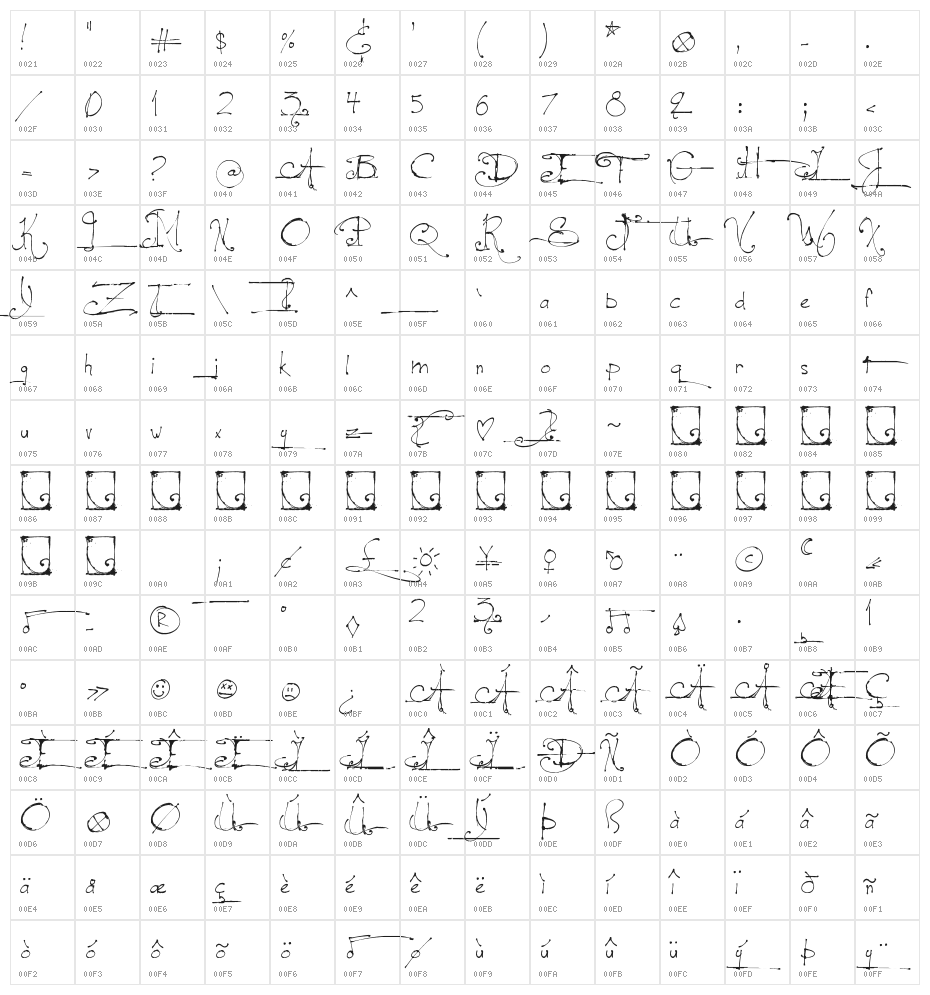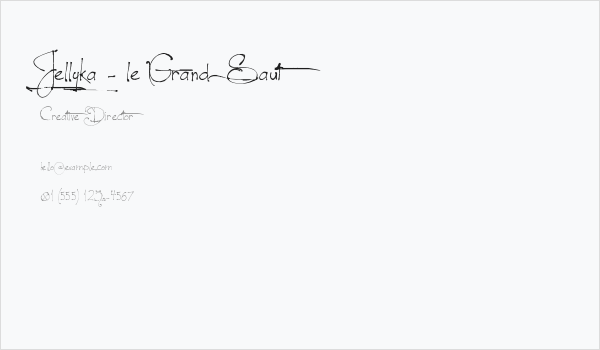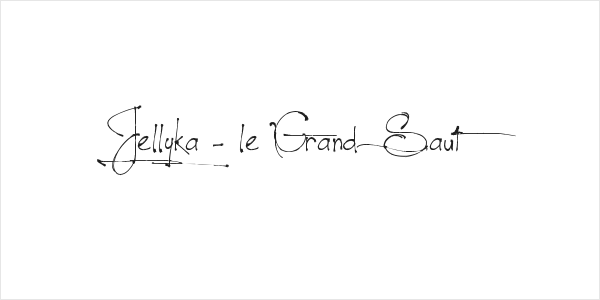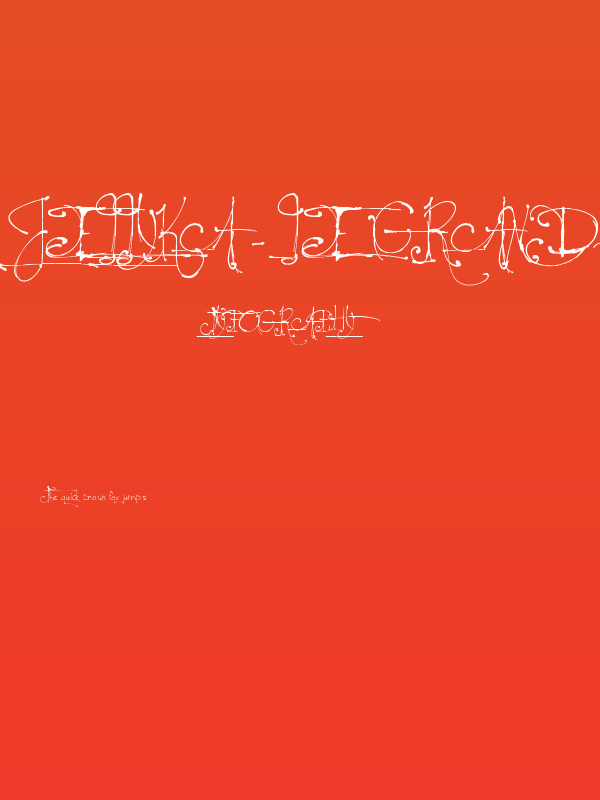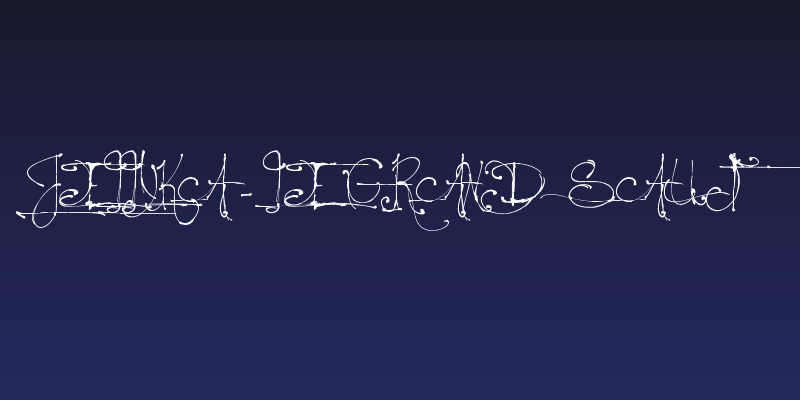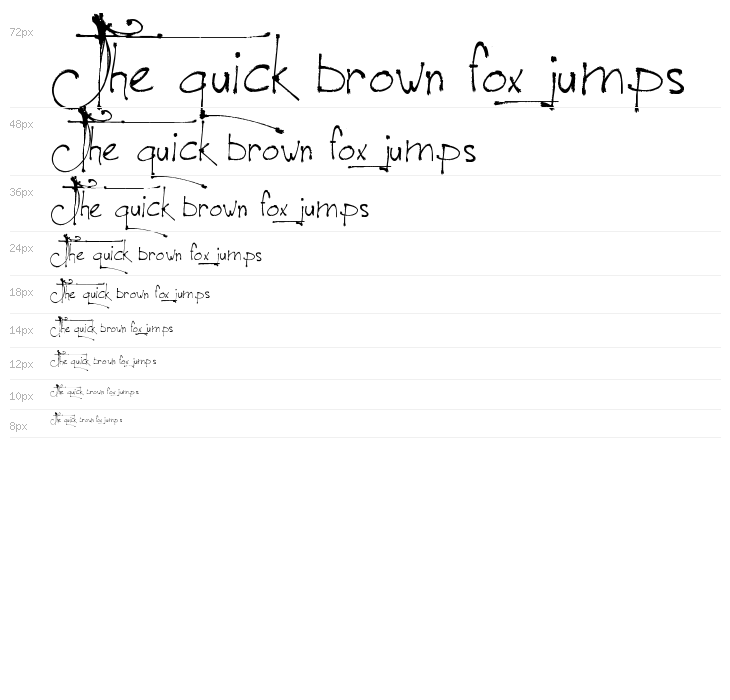
Jellyka - le Grand Saut Font
Jellyka - le Grand Saut Description
This font exudes a whimsical and artistic flair, characterized by its elaborate and flowing script style. The uppercase letters are adorned with intricate swirls and loops, giving them a decorative and almost calligraphic appearance. The lowercase letters maintain a more straightforward yet still elegant form, providing a nice contrast to the ornate capitals. Numbers and special characters follow the same artistic theme, with unique embellishments that add to the font's overall charm. The strokes vary in thickness, adding a dynamic and lively feel to the text.
| Use Case | Logos, Invitations, Artistic Projects |
| Proposed Projects | Ideal for wedding invitations, greeting cards, artistic posters, and branding that requires a touch of elegance and creativity. |